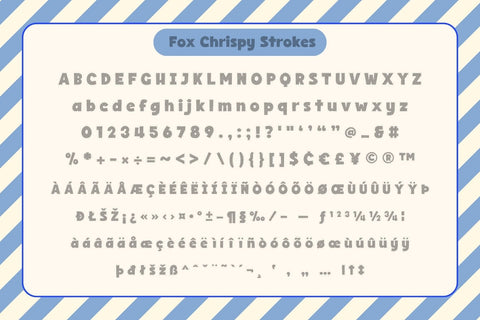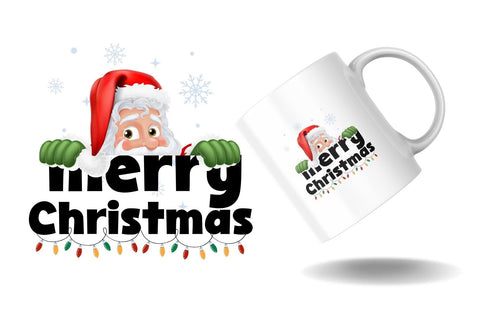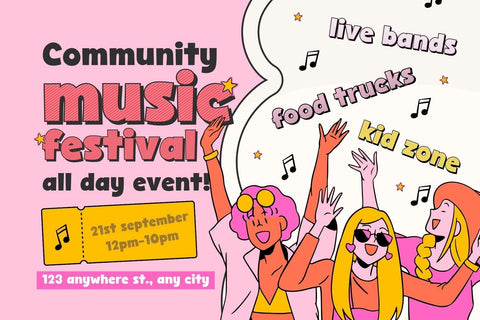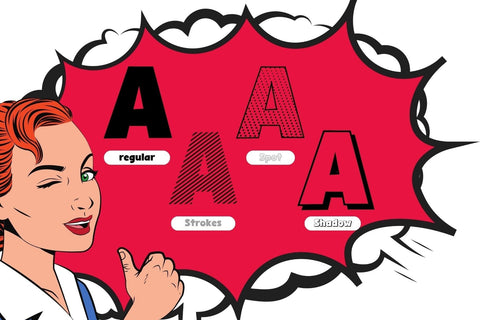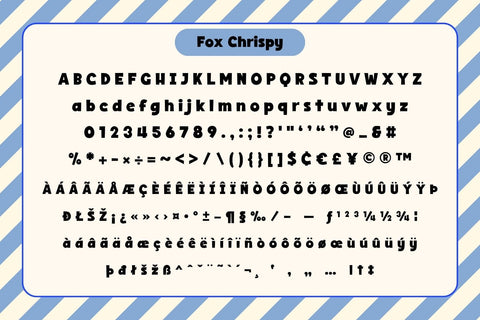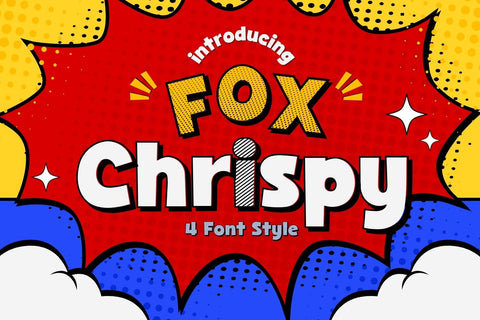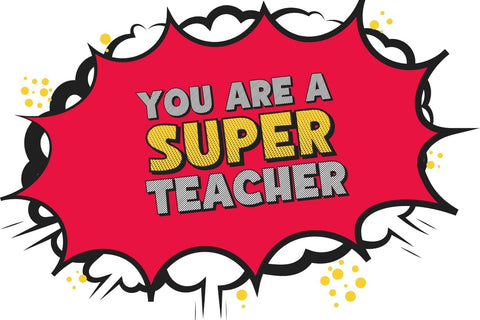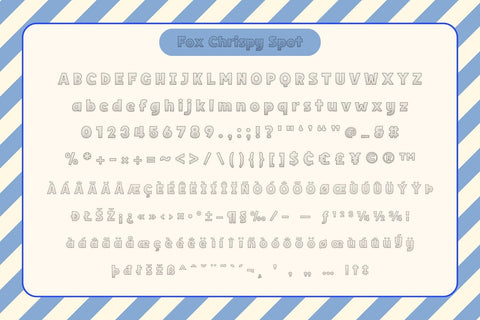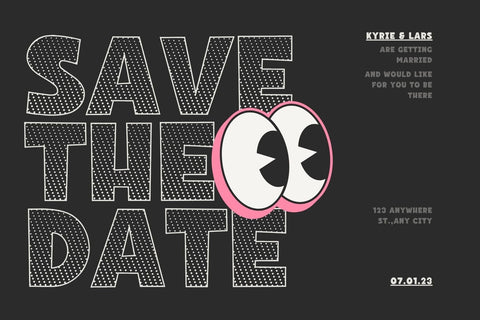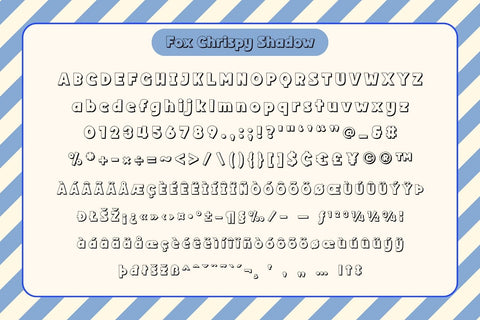
Fox Chrispy 4 Font Styles
Fox Chrispy is a 4 style font that cool cute and playful display font that adds a captivating and energetic touch to your designs. Perfect for use in publications, menus, logos, business cards, or even printed on t-shirts, these fonts exude uniqueness. Its main feature is its vibrant and expressive design, allowing you to create attention-grabbing headlines, t-shirt typography, banners, product labels, and more